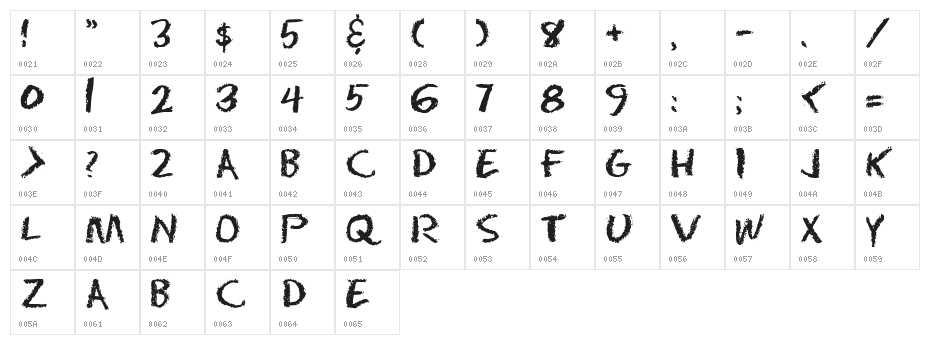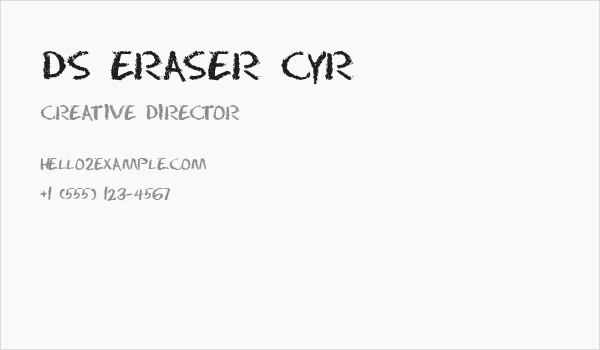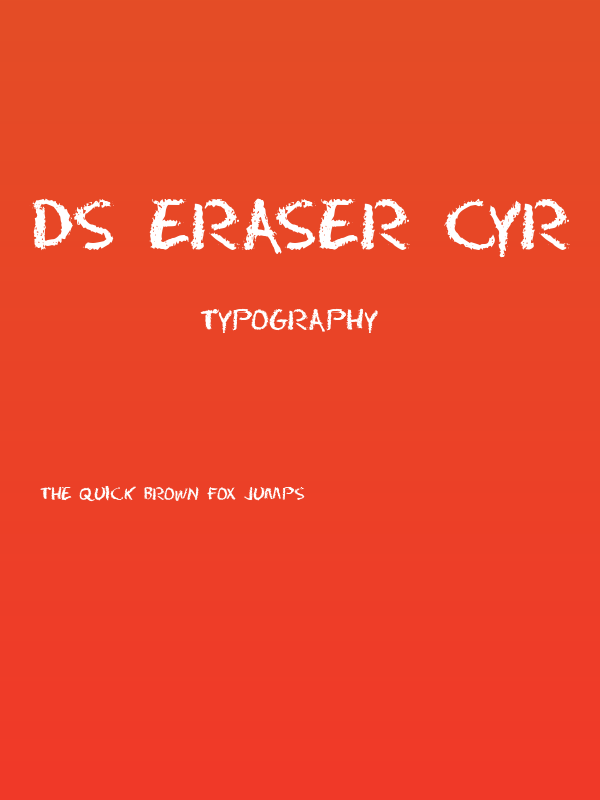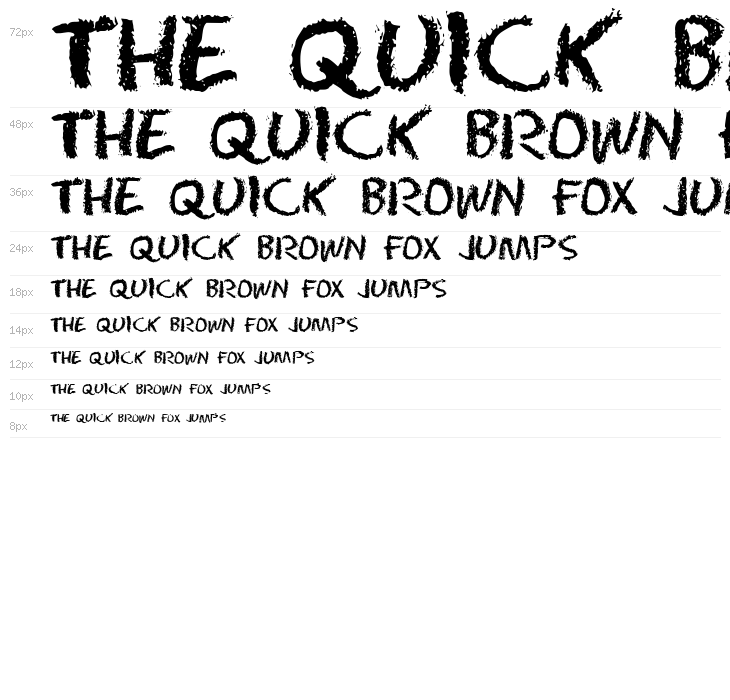
DS Eraser Cyr Font
DS Eraser Cyr Description
This font features a bold and distressed style, reminiscent of text that has been partially erased or worn away. The characters have a rough, textured appearance, giving them a dynamic and energetic feel. The uppercase and lowercase letters maintain a consistent design, with jagged edges and irregular strokes that add to the overall rugged aesthetic. Numbers and special characters follow the same theme, ensuring a cohesive look across all glyphs. This font is ideal for projects that require a bold statement or a grunge-inspired design.
| Overall Style | Grunge, Edgy, Distressed |
| Proposed Projects | Ideal for posters, album covers, streetwear branding, and edgy graphic designs. |